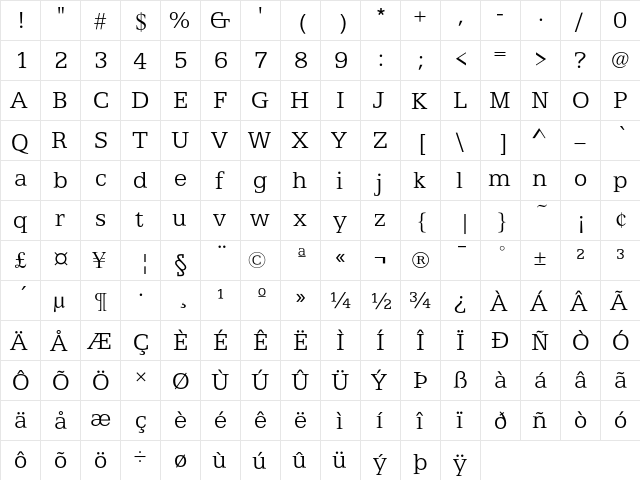
ATFAntiqueL Light
Design Context for ATFAntiqueL Typeface
ATFAntiqueL has the warm character of retro typography — evoking diners, record sleeves, and the golden age of print advertising. The delicate stroke weight brings airiness and refinement to layouts.
Font Pairing: Combine ATFAntiqueL with a simple slab or neutral sans — period-accurate companions reinforce the vintage feel without competing for attention.
Pro Tip: Use ATFAntiqueL for headlines and pull quotes rather than body copy — its personality is best appreciated in short, focused bursts.